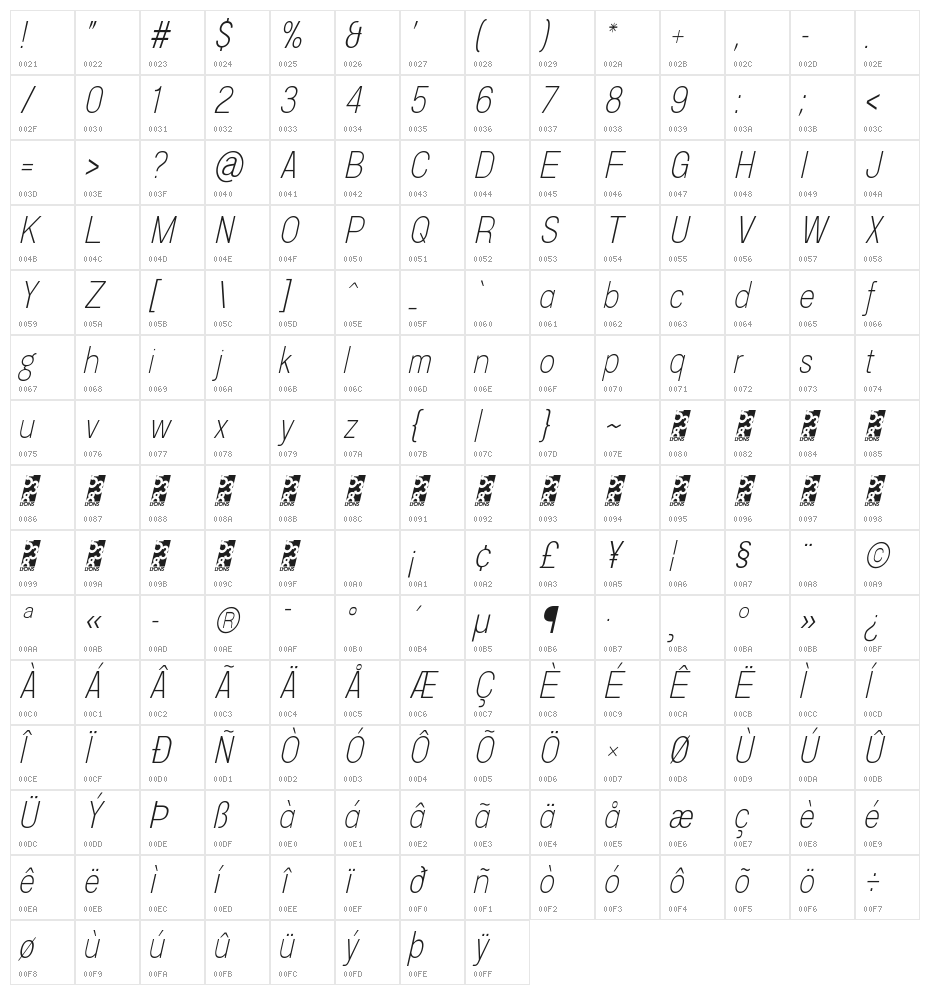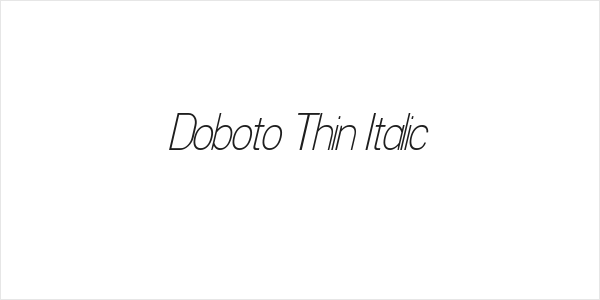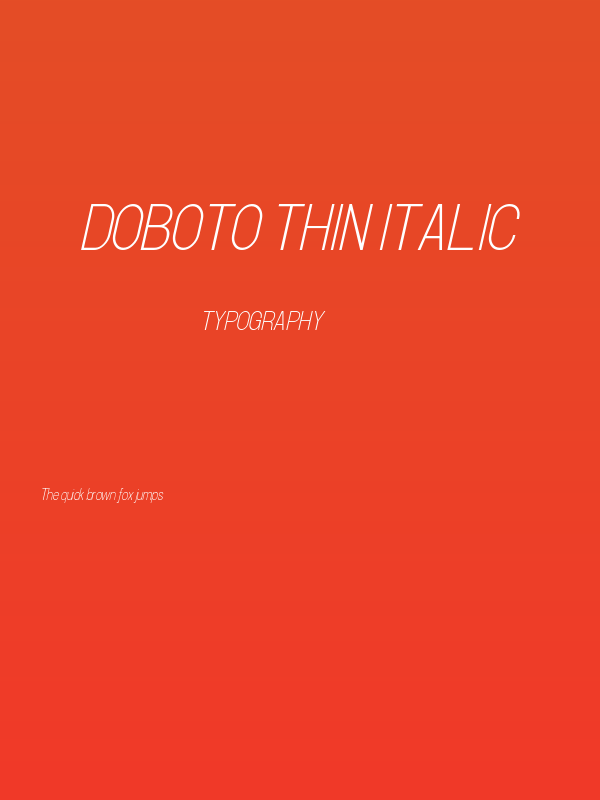
Doboto Thin Italic Font
Doboto Thin Italic Description
This font features a sleek and modern design with a thin, italicized style. The characters are elongated and slightly slanted, giving a sense of motion and elegance. The uppercase and lowercase letters maintain a consistent height, contributing to a uniform appearance. The numerals are clear and easy to read, while the special characters are distinct and well-defined. The overall look is minimalist, making it suitable for contemporary designs that require a touch of sophistication.
Proposed ProjectsIdeal for fashion magazines, modern branding, elegant invitations, and sleek website headers.